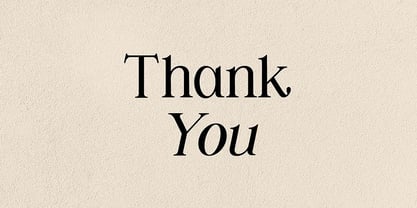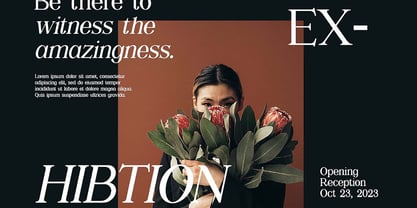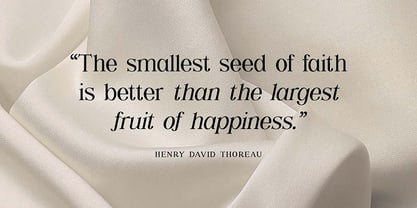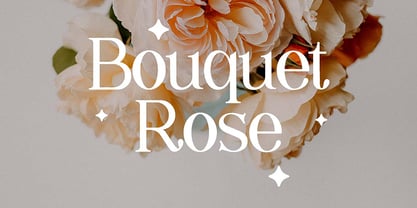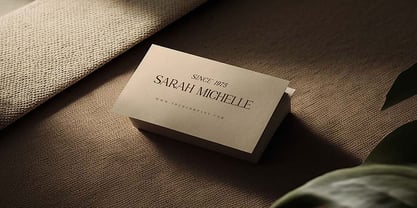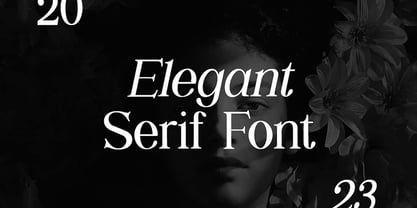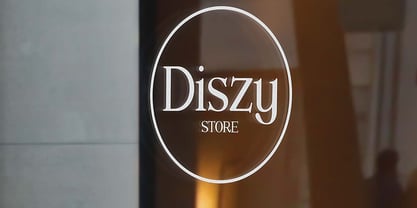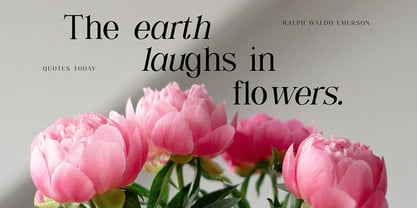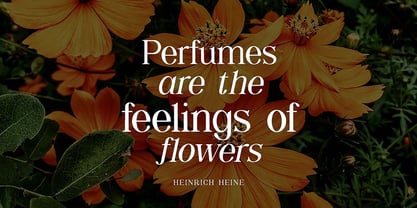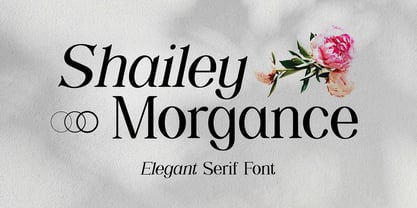
Shailey Morgance
by UICreative
The Shailey Morgance Font Family was designed by Hero and published by UICreative. Shailey Morgance contains 2 styles and family package options. More about this family
Shailey Morgance Elegant Serif Font. The modern display font feels beautiful classy, elegant, and stylish. This font is ideally suited for a wide variety of projects, such as signature, stationery, logo, wedding, typography quotes, magazine or book covers, website headers, branding, and more. Also, fashion-related branding or editorial design displays both masculine and feminine qualities.